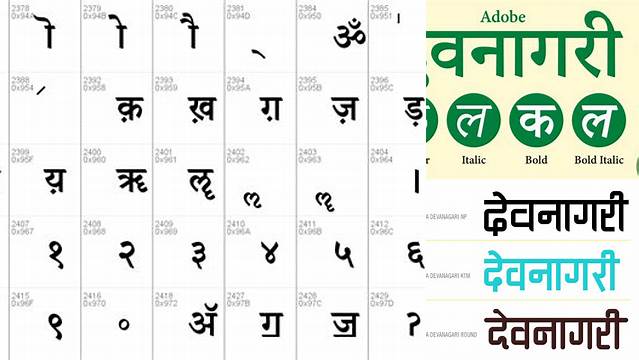
Hey guys! Looking to spice up your designs with a bold and beautiful font? You've come to the right place! We're diving deep into the world of Adobe Devanagari Bold, a fantastic font that blends the elegance of Devanagari script with a Western design sensibility. Whether you're a seasoned designer or just starting out, understanding this font and where to snag it for free is super valuable. Let's get started!
What is Adobe Devanagari Bold?
Adobe Devanagari Bold is a typeface that beautifully merges the traditional Devanagari script with modern Western design principles. For those unfamiliar, Devanagari is the script used to write several Indian languages, including Hindi, Marathi, and Nepali. This font style offers a strong and impactful visual presence, making it perfect for headlines, posters, and any design element where you need to grab attention. Think of it as a bridge between cultures, offering a unique aesthetic that’s both familiar and fresh. This font is not just about aesthetics; it's about functionality and readability too. The bold weight ensures that the text stands out, making it suitable for a variety of applications, from print media to digital platforms. You can use it to create stunning visuals for your website, social media, or even print materials like brochures and flyers.
Why Use Adobe Devanagari Bold?
So, why should you consider using Adobe Devanagari Bold in your projects? Well, there are several compelling reasons. First off, its unique blend of Devanagari and Western styles gives your work a distinctive edge. It’s not your run-of-the-mill font, so it helps your designs stand out from the crowd. Imagine you're designing a poster for a cultural event or a website that caters to a diverse audience; this font can be a game-changer. The bold weight adds emphasis and clarity, ensuring that your message is communicated effectively. Plus, it’s incredibly versatile. Whether you're working on a minimalist design or something more elaborate, Adobe Devanagari Bold can adapt to your needs. It works well in both headlines and body text, providing consistency and visual appeal throughout your project. The readability factor is also a huge plus. Even though it has a distinctive style, it doesn't compromise on clarity, making it a practical choice for various applications. You can use it in both print and digital media without worrying about legibility issues. This font is a fantastic choice for projects that require a touch of cultural flair combined with modern aesthetics. It’s perfect for branding, advertising, and any creative endeavor where you want to make a bold statement.
Devanagari Font Styles and Their Uses
Devanagari font styles are incredibly diverse, each with its unique charm and application. Understanding these styles can help you choose the perfect font for your project. For example, some Devanagari fonts lean towards a more traditional, calligraphic look, ideal for formal invitations or cultural documents. These fonts often feature intricate strokes and elaborate detailing, reflecting the rich heritage of the Devanagari script. On the other hand, you'll find modern Devanagari fonts that are sleek and minimalist, perfect for contemporary designs and digital interfaces. These fonts prioritize readability and clarity, making them suitable for websites, apps, and other digital platforms. Adobe Devanagari Bold falls into the category of a modern font with a bold weight, making it versatile for various uses. You can use it for headlines, posters, branding materials, and even body text if you want to make a strong statement. When selecting a Devanagari font, consider the tone and message of your project. A traditional font might be perfect for a wedding invitation, while a modern font might be better suited for a tech company's website. The weight of the font also plays a crucial role. A bold font like Adobe Devanagari Bold is great for grabbing attention, while a lighter weight font might be more appropriate for longer blocks of text. Experiment with different styles and weights to see what works best for your design. And don't forget to check the font's licensing terms before using it in your project, especially if it's for commercial purposes.
Understanding Devanagari Script
Before diving deeper into Devanagari fonts, let's take a moment to understand the Devanagari script itself. Devanagari is an abugida, a writing system where consonants have an inherent vowel sound, and diacritics are used to change or remove that vowel. It's used to write several languages, including Hindi, Marathi, Nepali, and Sanskrit, making it one of the most widely used scripts in India and Nepal. The script is characterized by its horizontal top line, which connects the letters, giving it a distinctive appearance. The letters themselves have a unique structure, with curves and lines that flow beautifully together. Learning about the nuances of Devanagari script can help you appreciate the artistry behind Devanagari fonts. You'll start to notice the subtle differences between fonts and how they reflect the script's inherent beauty. Understanding the script also allows you to make more informed decisions when choosing a font for your project. You'll be able to select a font that not only looks good but also accurately represents the cultural and linguistic context. For example, if you're designing a poster for a Hindi film, you'll want to choose a Devanagari font that is both stylish and authentic. Similarly, if you're creating a website for a Sanskrit school, you'll want a font that is clear, legible, and respectful of the traditional script. Knowledge of Devanagari script can also help you identify any potential issues with a font, such as incorrect glyphs or spacing problems. This is especially important when using free fonts, as they might not always be as thoroughly tested as paid fonts.
The History of Devanagari Script
The history of Devanagari script is fascinating, tracing back to ancient India. It evolved from the Brahmi script, one of the oldest writing systems in the world. Over centuries, the Brahmi script branched out into various regional scripts, one of which was the Nagari script. Devanagari is a descendant of the Nagari script, and it gradually became the standard script for writing Sanskrit and other languages in the northern part of the Indian subcontinent. The word “Devanagari” itself translates to “script of the city of the Gods,” reflecting its sacred origins and connection to classical Indian literature and philosophy. The script's development was closely tied to the spread of Hinduism and Buddhism, as it was used to write religious texts and scriptures. The invention of the printing press in the 15th century played a crucial role in standardizing Devanagari script. Printed books and documents helped to establish a consistent form of the script, which further solidified its widespread use. Today, Devanagari script is used by hundreds of millions of people, making it one of the most important writing systems in the world. Its rich history and cultural significance make it a script that is not only functional but also deeply meaningful. Understanding the history of Devanagari script can add another layer of appreciation when you're working with Devanagari fonts. You'll be able to see the script as more than just a set of symbols; it's a living legacy that connects you to a rich cultural heritage. This historical context can inform your design choices and help you create visuals that are both aesthetically pleasing and culturally sensitive.
Finding the Right Font for Your Project
Finding the right font for your project is a crucial step in the design process. It's not just about aesthetics; the font you choose can significantly impact the readability and overall message of your design. For projects involving Devanagari script, this decision is even more important. Devanagari fonts come in various styles, each with its own unique character and suitability for different applications. Before you start browsing fonts, take some time to define the purpose and tone of your project. Are you designing a formal invitation, a modern website, or a cultural poster? The answer to these questions will help you narrow down your options. Consider the target audience as well. If you're designing for a specific cultural group, you'll want to choose a font that resonates with their traditions and preferences. Readability is another key factor. While a fancy, decorative font might look appealing, it's essential to ensure that your text is easy to read, especially for longer passages. Choose a font with clear and well-defined characters, and pay attention to kerning and spacing. The weight of the font is also important. Bold fonts are great for headlines and titles, while lighter weights are better suited for body text. Experiment with different weights to see what works best for your design. Don't be afraid to try out multiple fonts before making a final decision. You can download trial versions of premium fonts or use free fonts to test them in your design. Pay attention to how the font looks in different sizes and contexts. Ultimately, the right font is one that aligns with your project's goals and effectively communicates your message.
Matching Devanagari and Western Fonts
One of the challenges in design is effectively matching Devanagari and Western fonts. This is especially important if you're working on a bilingual project or a design that incorporates elements from both cultures. The key to successful font pairing is to create a harmonious balance between the two scripts. You want fonts that complement each other without clashing or competing for attention. Start by considering the overall style and tone of your project. If you're using a modern Devanagari font, pair it with a contemporary Western font like Helvetica or Arial. If you're using a more traditional Devanagari font, consider a serif Western font like Times New Roman or Garamond. Pay attention to the weights of the fonts. If you're using a bold Devanagari font, pair it with a Western font that has a similar weight. This will help to create a sense of visual consistency. Consider the x-height of the fonts as well. The x-height refers to the height of the lowercase letters. Ideally, you want fonts with similar x-heights so that the text appears balanced. Don't be afraid to experiment with different font pairings. Try out several combinations until you find one that feels right. You can use online tools and resources to help you with font pairing. These tools often suggest fonts that work well together based on their style and characteristics. Remember, the goal is to create a cohesive and visually appealing design. A well-chosen font pairing can enhance the overall look and feel of your project, making it more effective and engaging.